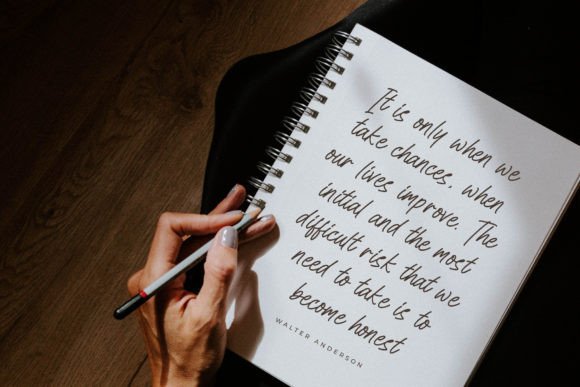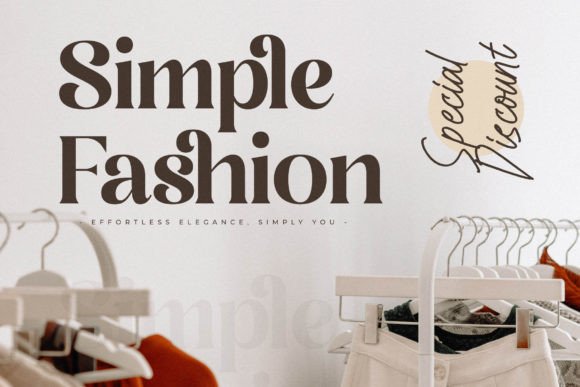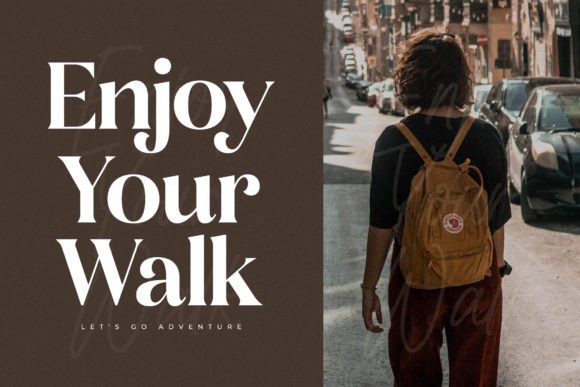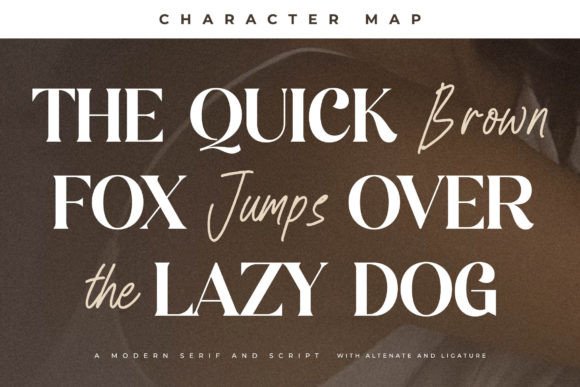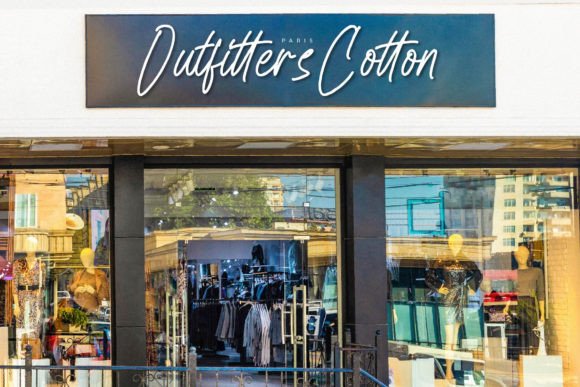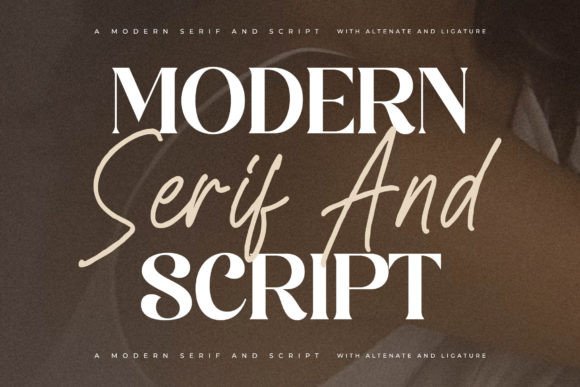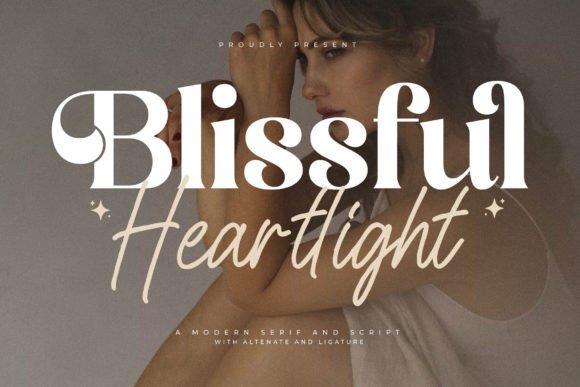
Introducing Blissful Heartlight Font: Elevate Your Designs with Elegance and Luxury
We are thrilled to present the Blissful Heartlight Font Duo, a stunning combination of serif and script typefaces that exude a unique style and modern aesthetic. This versatile font pair is meticulously crafted to cater to the diverse needs of designers, crafters, and luxury brands seeking to make a lasting impression.
Unleash Your Creativity with Unique Style and Modern Look
The Blissful Heartlight Font Duo boasts a distinctive blend of classic serifs and elegant script elements, making it an ideal choice for projects that demand sophistication and refinement. Whether you’re designing an elegant logo, a book or movie title, a fashion brand, or a magazine, this font duo is sure to elevate your work to new heights.
This exceptional font pair is perfect for a wide range of applications, including:
- Elegant logos and branding materials
- Book and movie titles
- Fashion brands and clothing designs
- Magazines and editorial content
- Lettering and quote designs
- And many more creative projects
PUA Encoding: Easy Access to Glyphs and Ligatures
One of the standout features of the Blissful Heartlight Font Duo is its PUA (Private Use Area) encoding. This means that you can effortlessly access all the amazing glyphs and ligatures, allowing you to add an extra layer of creativity and sophistication to your designs.
Why Choose Blissful Heartlight Font?
Here are just a few reasons why the Blissful Heartlight Font Duo stands out from the rest:
- Unique and modern design: The font duo’s distinctive style sets it apart from more traditional typefaces.
- Highly versatile: Suitable for a wide range of applications, from elegant logos to fashion brands.
- PUA encoded: Easy access to glyphs and ligatures for added creative freedom.
- Elegant and luxurious: Perfect for projects that demand sophistication and refinement.
Take Your Designs to the Next Level
With the Blissful Heartlight Font Duo, you’ll be able to create stunning designs that leave a lasting impression. Whether you’re a seasoned designer or a crafty enthusiast, this font pair is sure to become a valuable addition to your creative arsenal.